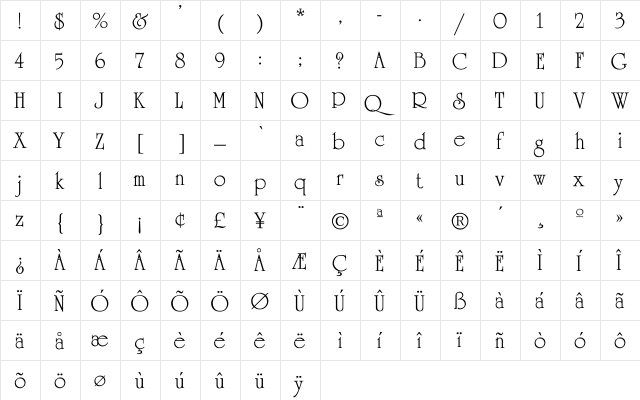
University-Roman-Normal Regular
University-Roman-Normal is a composed and adaptable typeface that performs quietly and consistently across a wide range of design contexts.